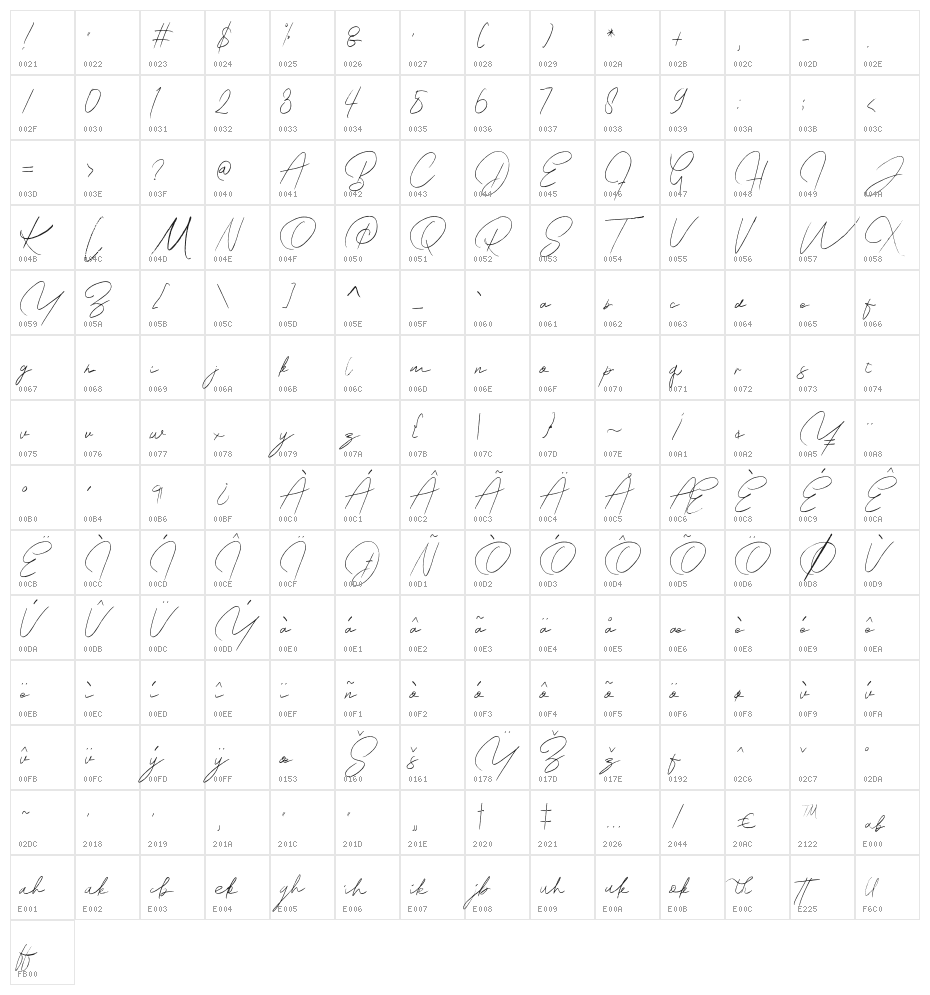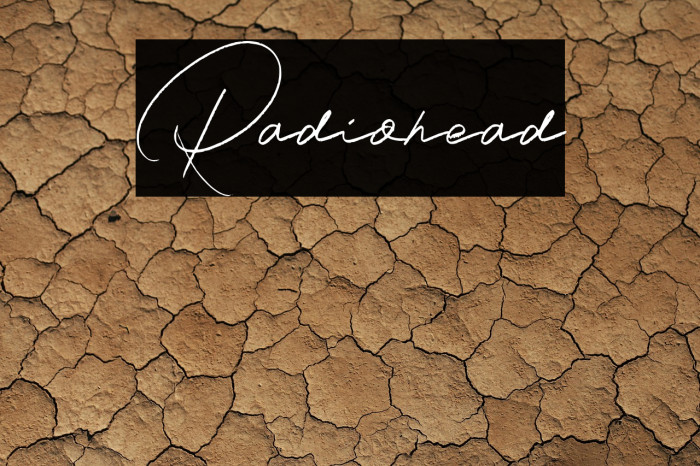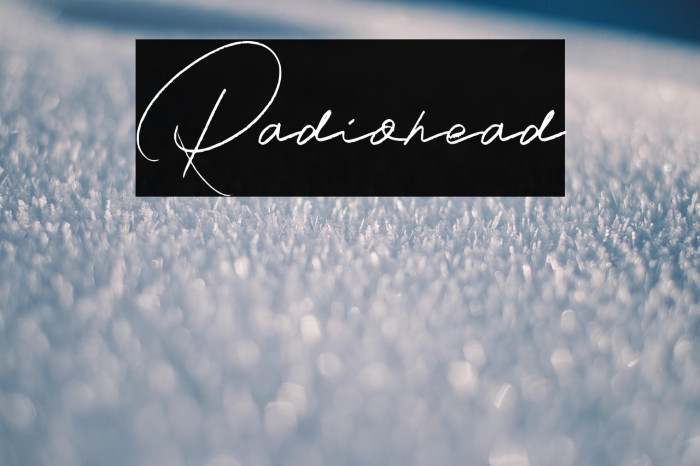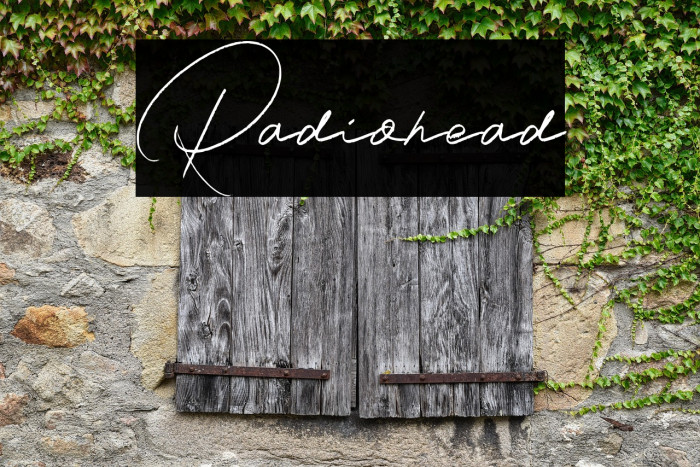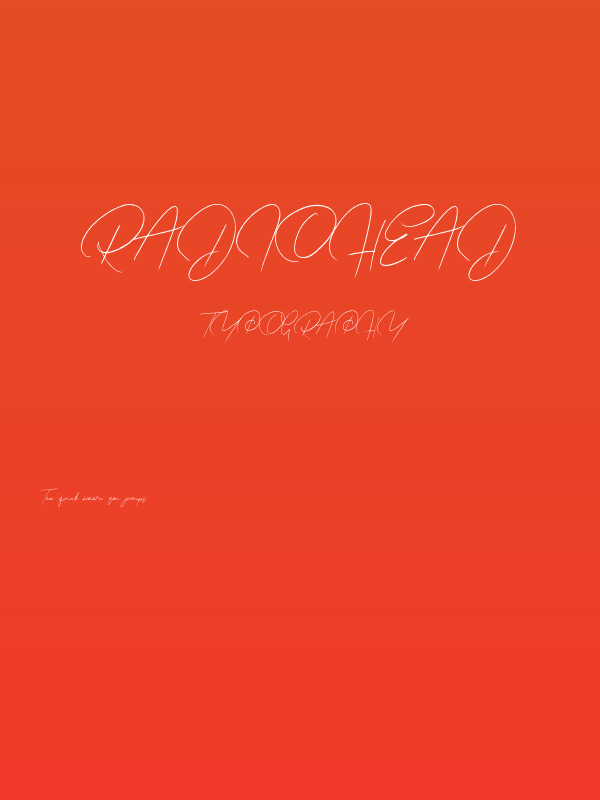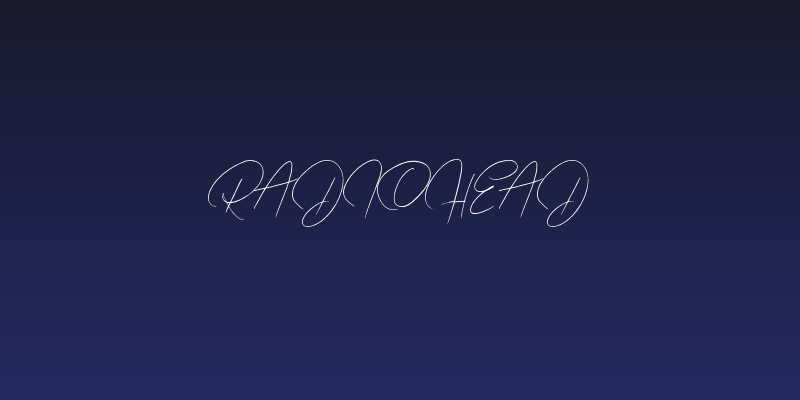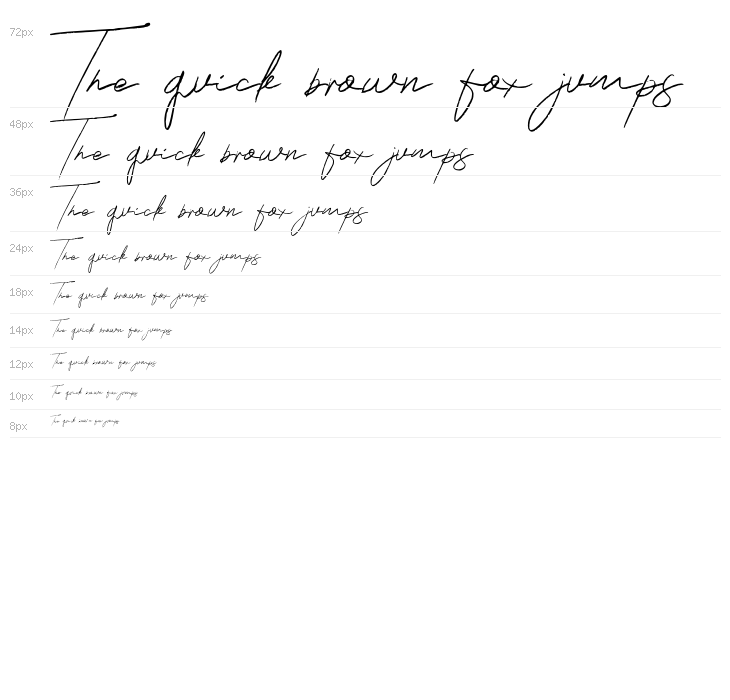
Radiohead Font
Radiohead Description
This font features a flowing, cursive style that mimics elegant handwriting. The letters are connected in a fluid manner, giving it a natural and personal touch. The uppercase letters are tall and graceful, while the lowercase letters maintain a consistent slant, enhancing the script's fluidity. The numerals and special characters follow the same cursive style, ensuring uniformity across all characters. The strokes are thin and delicate, with slight variations in thickness that add to the handwritten feel. This font exudes a sense of sophistication and charm, making it suitable for projects that require a personal or artistic touch.
| Proposed Projects | Ideal for wedding invitations, personal letters, branding for luxury products, and artistic projects. |